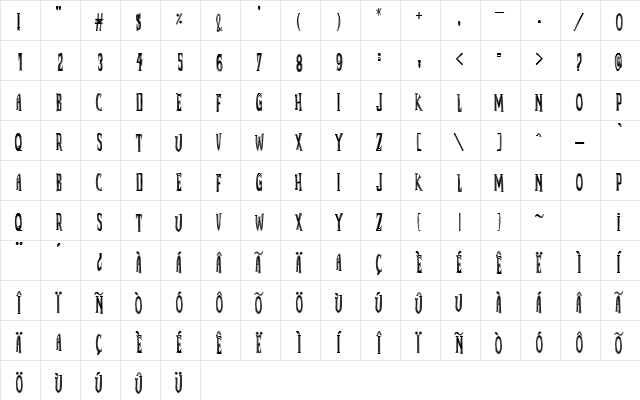
Dead By Dawn UK Regular
Design Context for Dead By Dawn UK Typeface
Dead By Dawn UK is a composed and adaptable typeface that performs quietly and consistently across a wide range of design contexts.